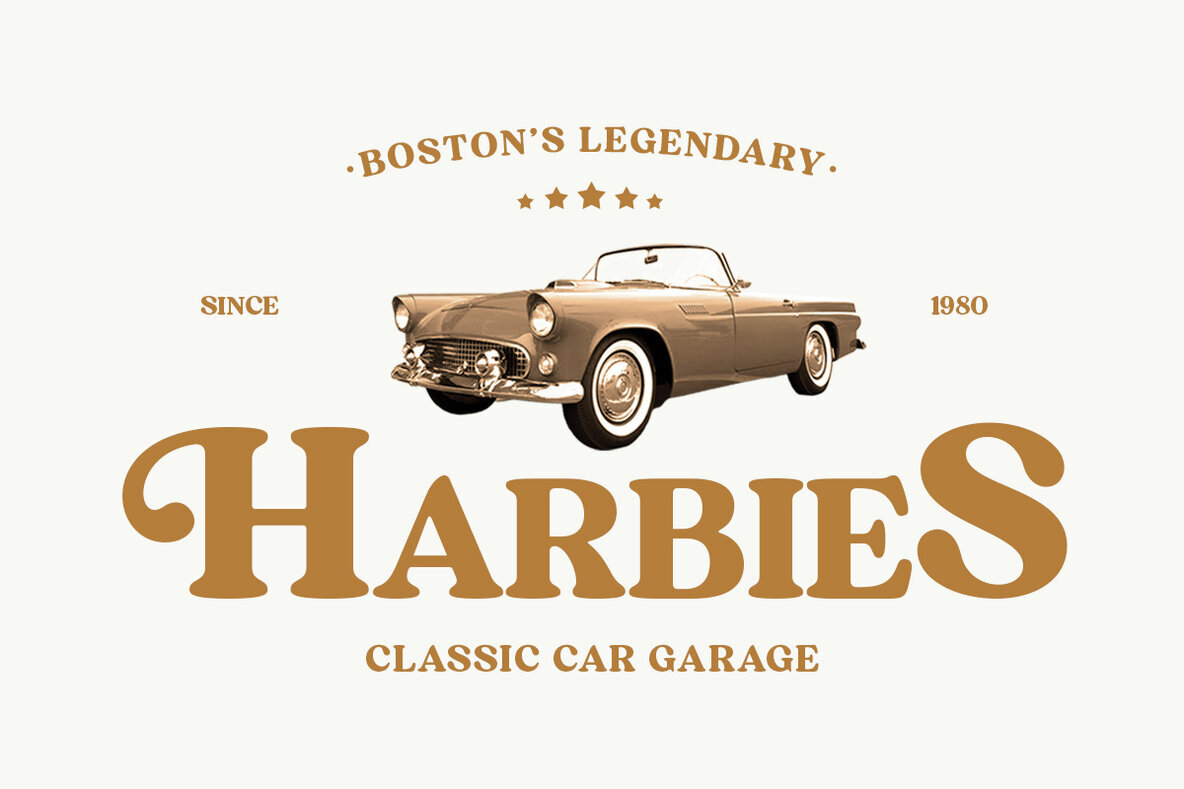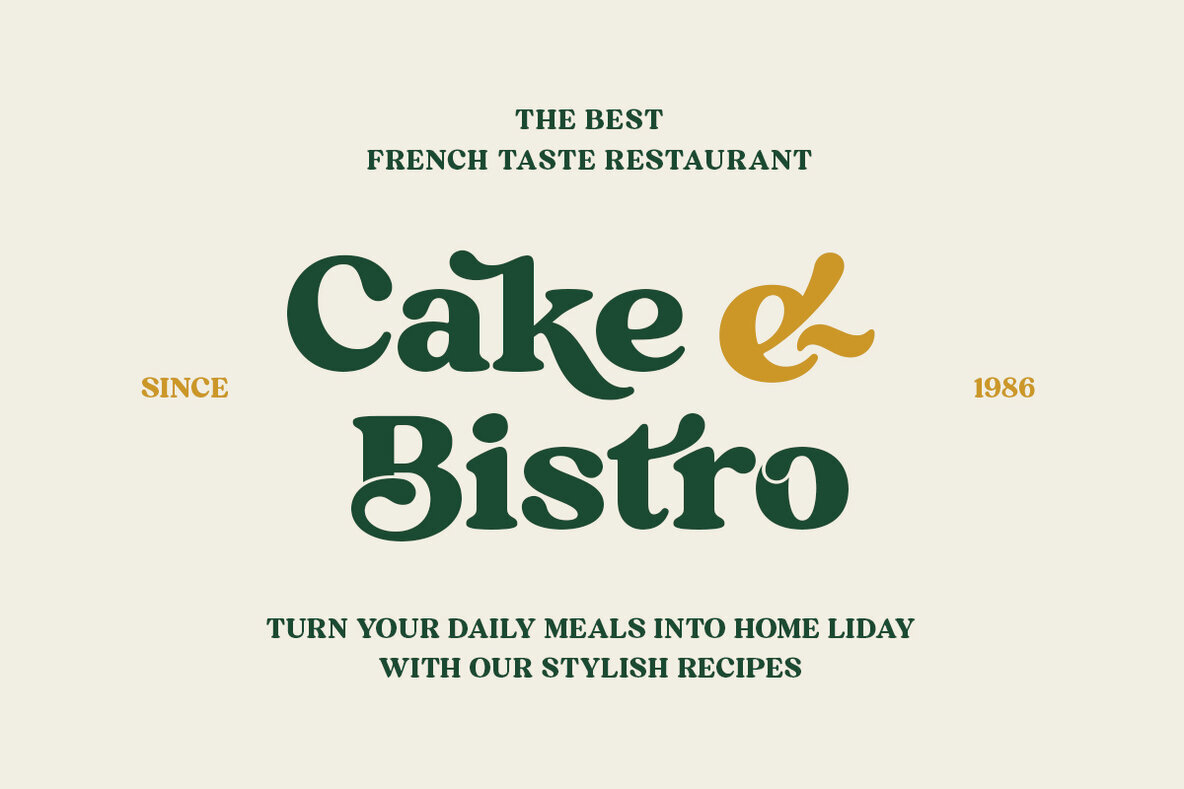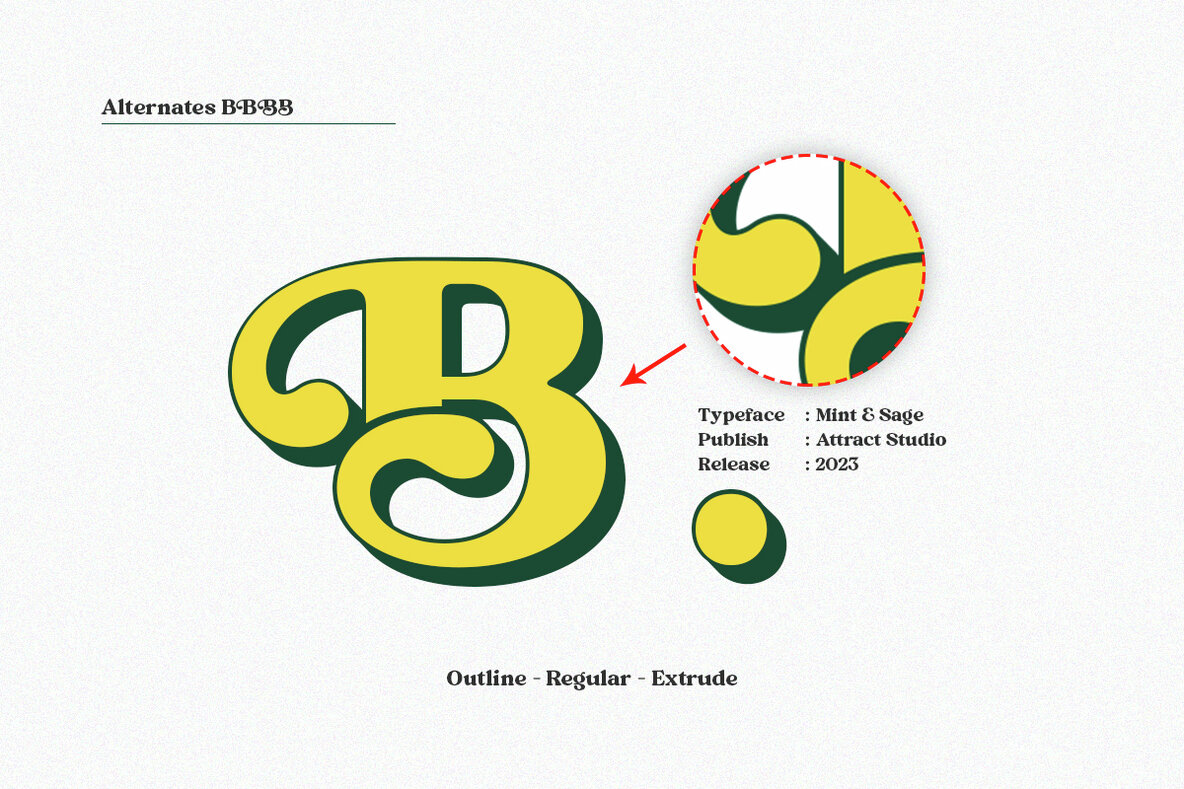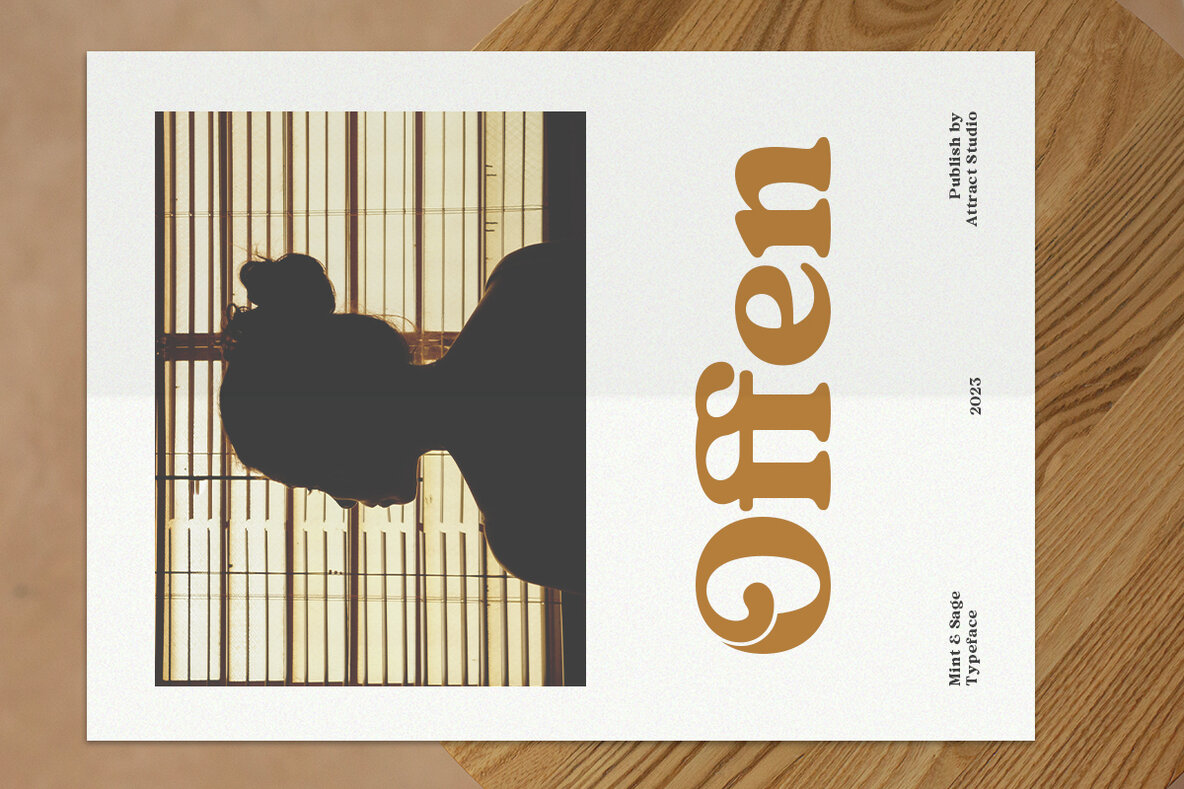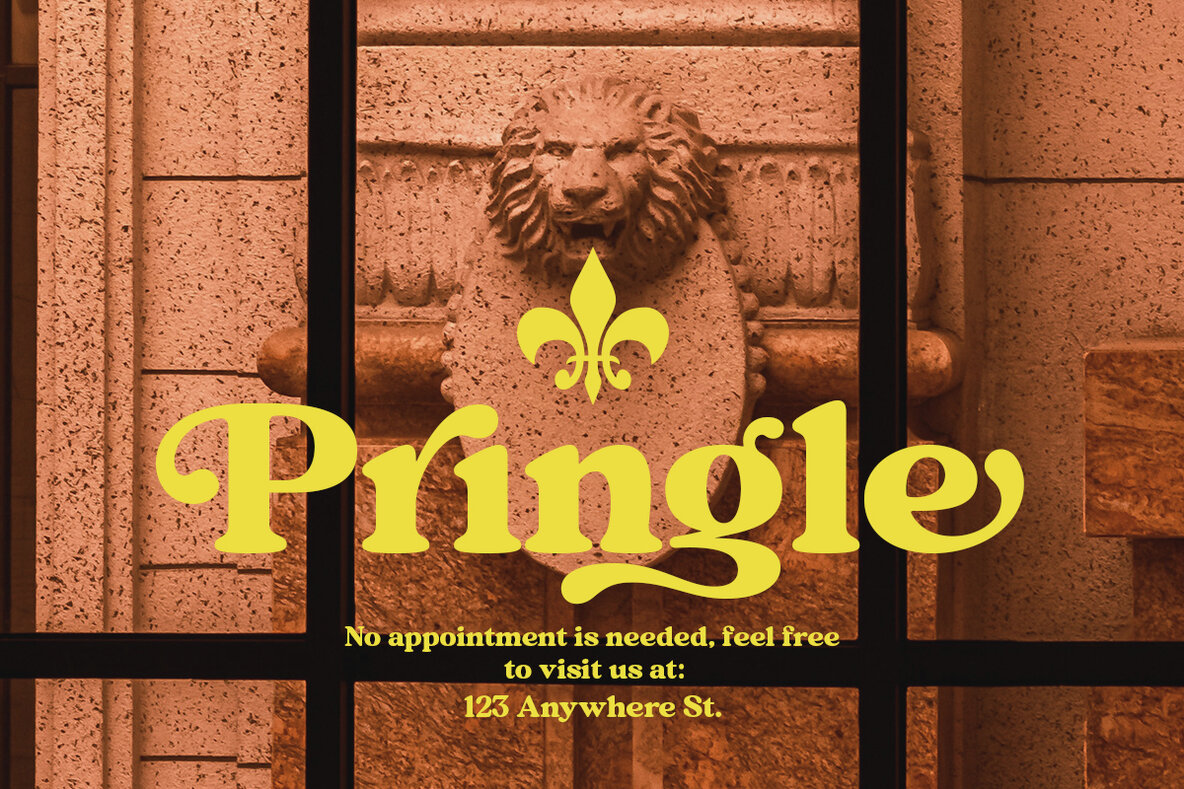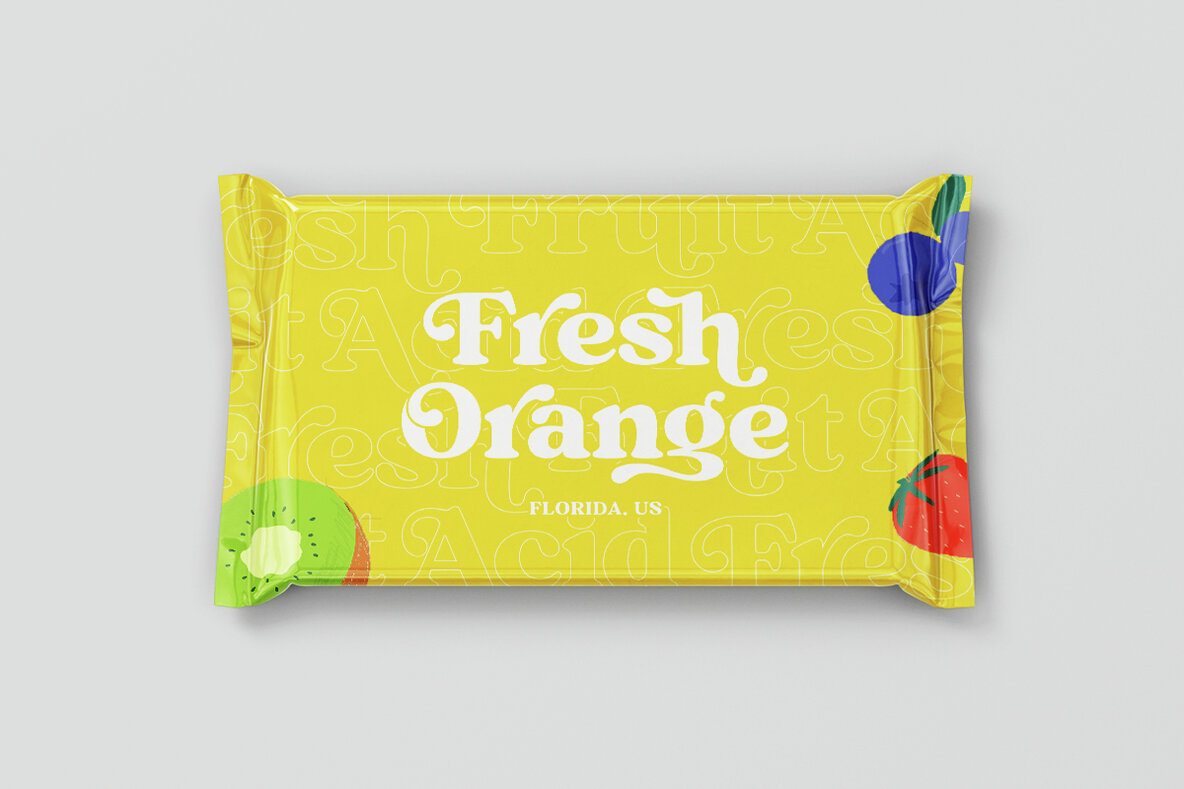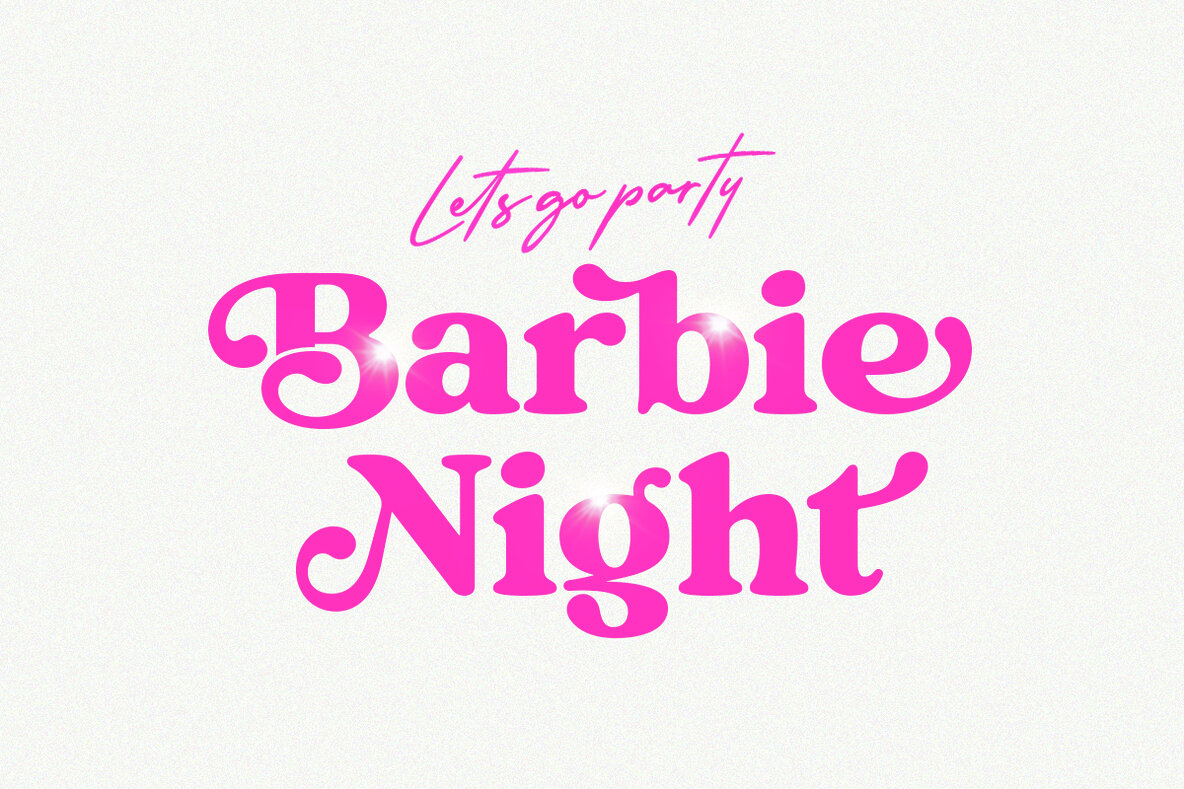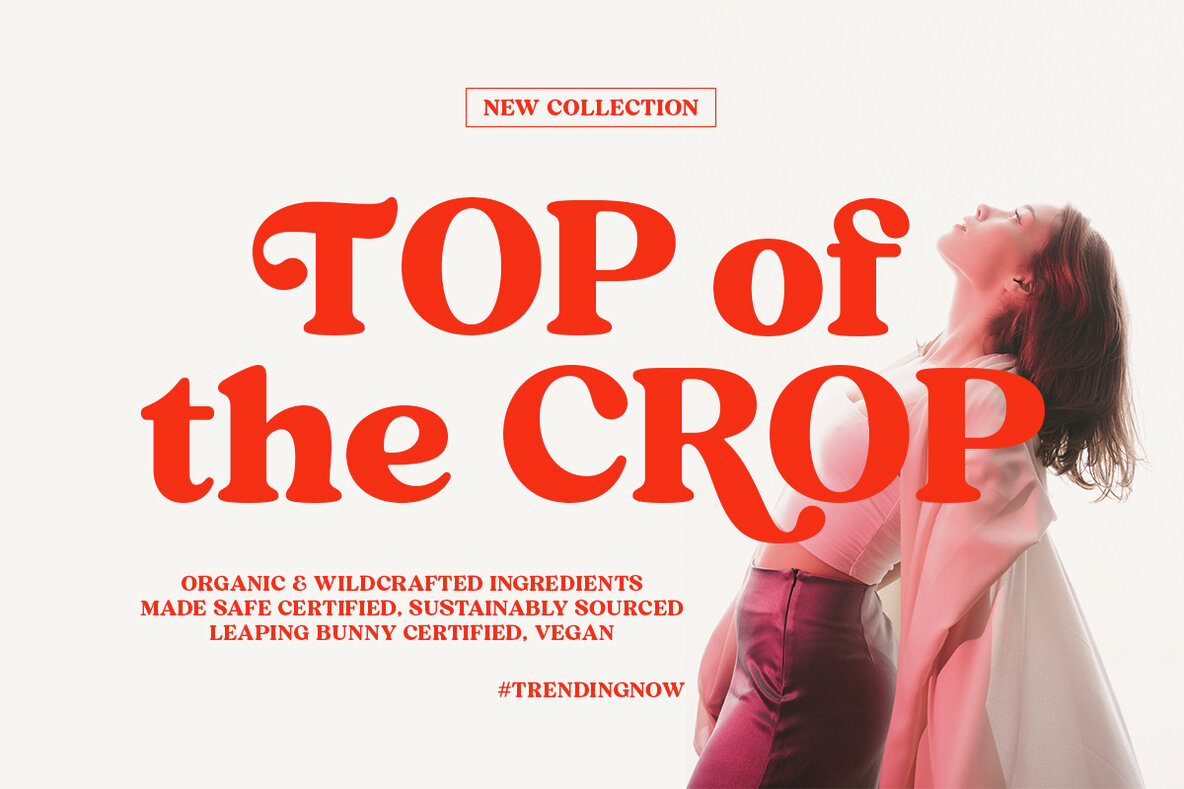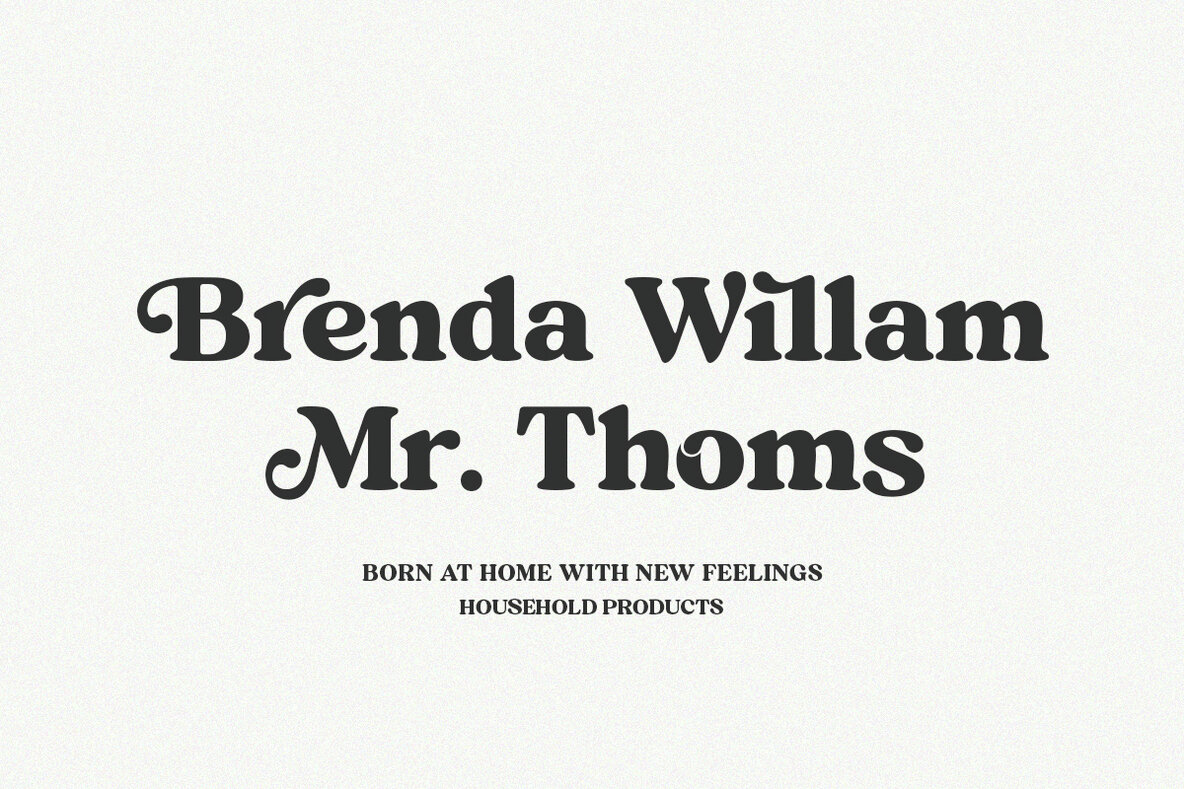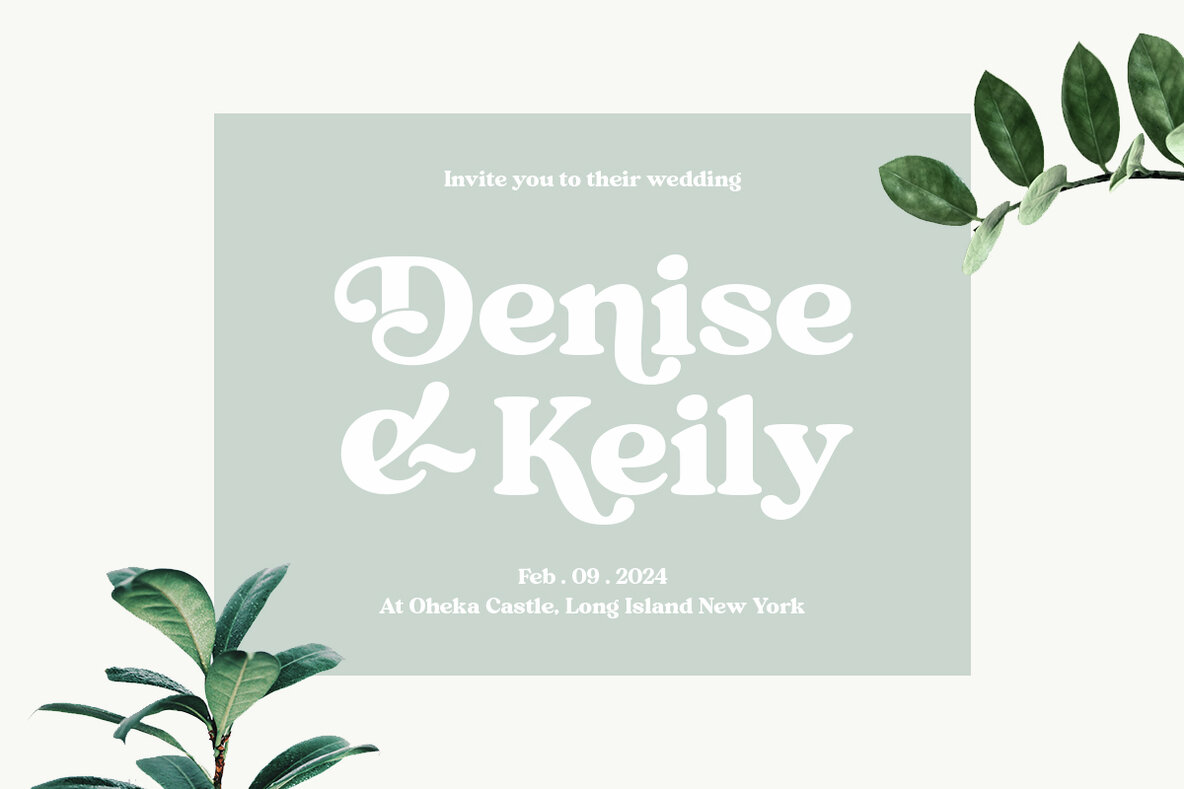
Mint And Sage Font
Mint And Sage captures the essence of the sixties and seventies old-style serifs, revitalizing them for contemporary design needs. This typeface blends nostalgia with a modern touch, making it ideal for a variety of creative projects. The soft serif design of Mint And Sage is perfect for a wide array of projects, including invitations, postcards, posters, books, advertisements, websites, blog headers, logos, branding, magazines, fashion, photography, and editorial design.Mint And Sage: Nostalgic Typeface with Modern Flair
Versatile Design Applications
Typeface Features